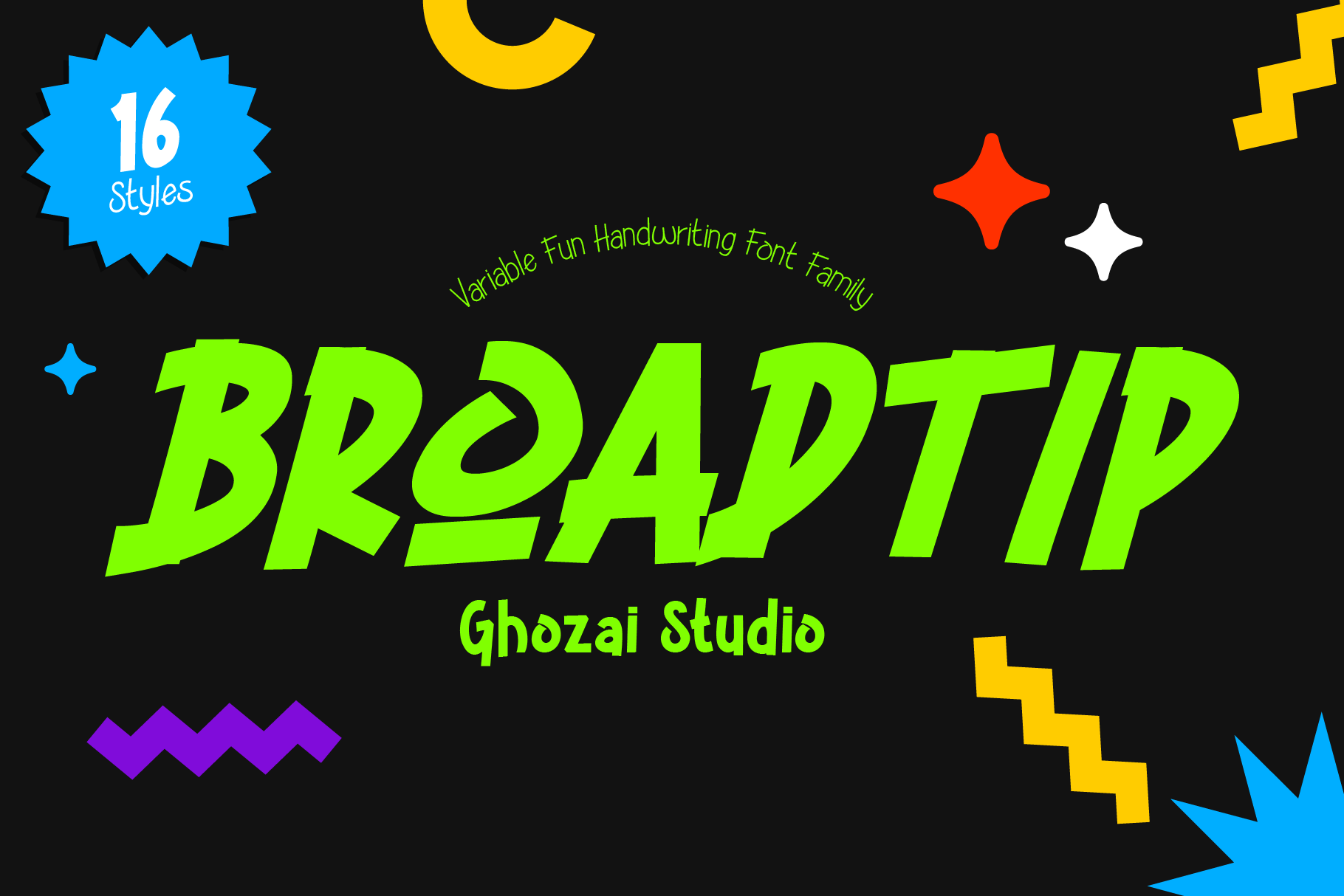
Broadtip - variable font
Broadtip is a captivating handwriting font family inspired by the classic broad and chisel pen tips, offering a unique blend of natural handwriting styles. This font family comes with 16 distinct styles, including 8 standard and 8 italic variations, each meticulously designed to capture the essence of traditional penmanship. Whether you're aiming for a subtle, refined look or a striking, bold statement, Broadtip’s range of weights, from thin to extra bold, ensures that it can meet diverse design needs with flair.
With its wide range of styles, Broadtip is perfect for a variety of design applications, from sophisticated editorial layouts to eye-catching branding projects. Its thoughtful design allows for both intricate detail and strong visual impact, making it a valuable asset for any designer seeking to infuse their work with a touch of classic charm and modern flexibility.